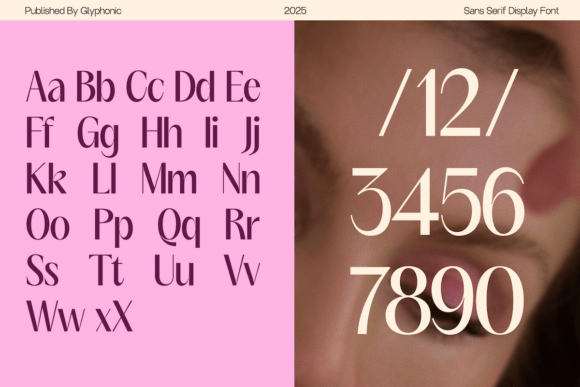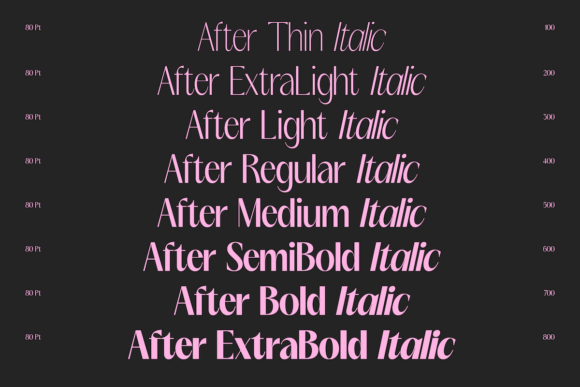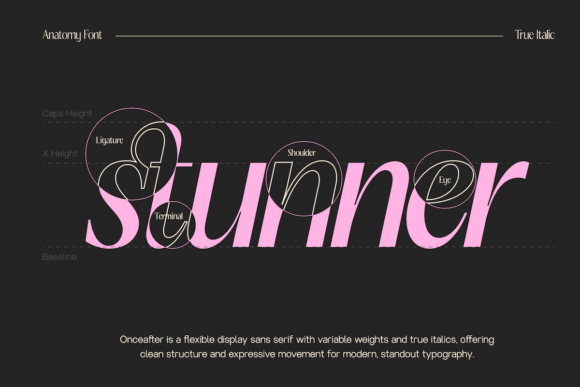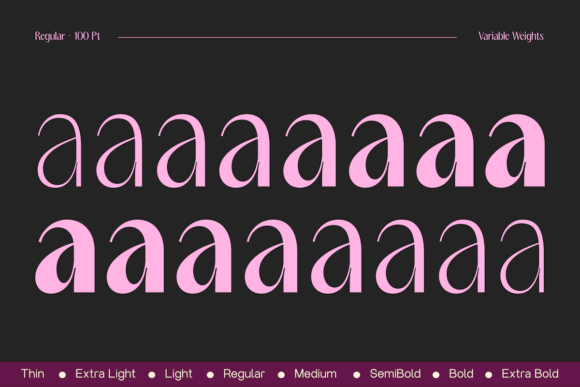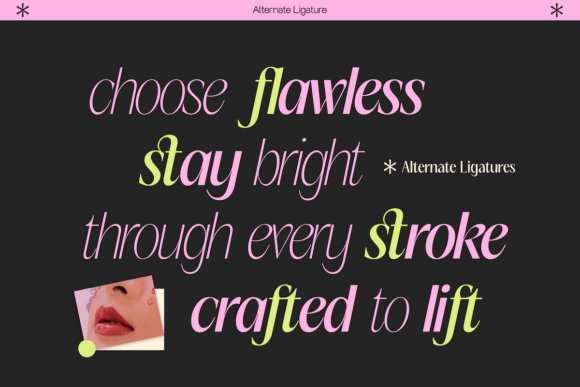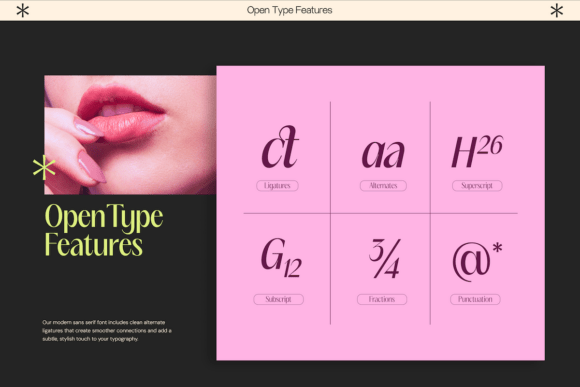
Introduction to Once After Font
OnceAfter is a sophisticated, variable sans-serif display typeface available in regular and italic styles, distinguished by its elegant, high-contrast curves and large, expressive apertures that redefine modern luxury.
This exquisite OnceAfter font presents a subtle yet dramatic flair, borrowing the grace of a serif but retaining the clean, minimalist structure of a sans-serif, resulting in a unique, highly editorial aesthetic The large, sweeping bowl structures and precise weight transition create a glamorous presence, making it the perfect choice for high-fashion magazines, exclusive digital interfaces, and premium beauty branding.
Key Features of Once After Font